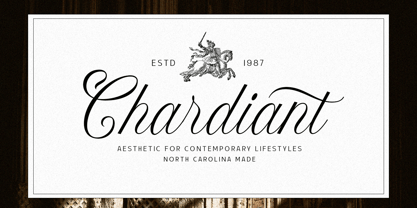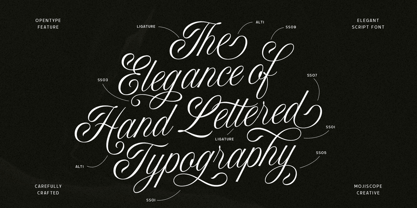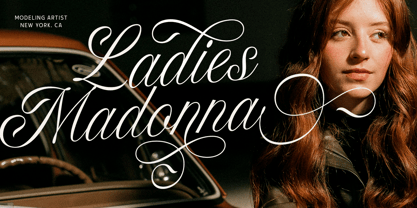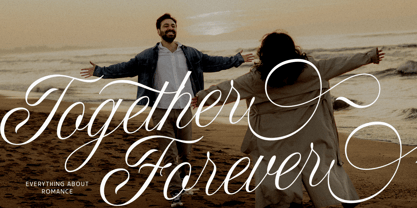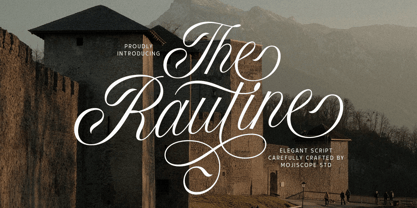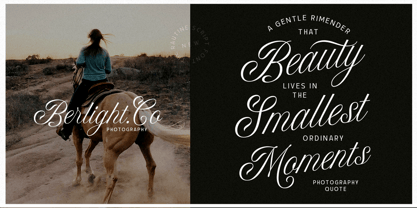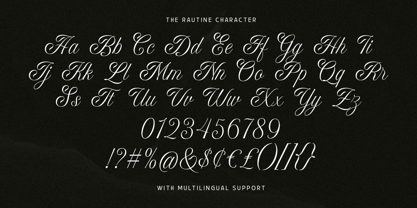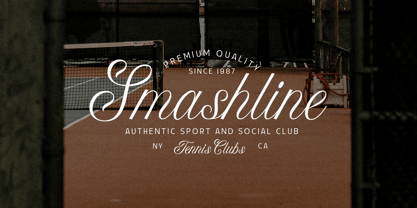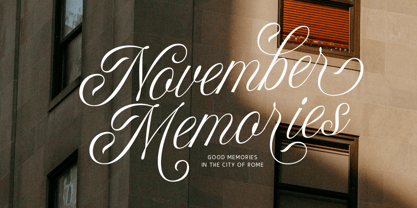
The Rautine
by Mojiscope Studio
The The Rautine Font Family and published by Mojiscope Studio. The Rautine contains 1 styles. More about this family
Introducing "The Rautine," a beautifully crafted script font that exudes elegance, class, and timeless sophistication. With its flowing characters, delicate curves, and graceful swashes, The Rautine is designed to bring a touch of luxury and romance to your creative projects. Every letter is carefully designed with a high contrast between thick and thin strokes, creating a stunning calligraphic feel that is both classic and modern. The Rautine is not just a font; it's an experience of pure elegance that will make your work stand out. Perfect for projects that require a touch of refinement, such as wedding invitations, luxury brand identities, signature logos, high-end packaging, website headers, and beautiful quote graphics.